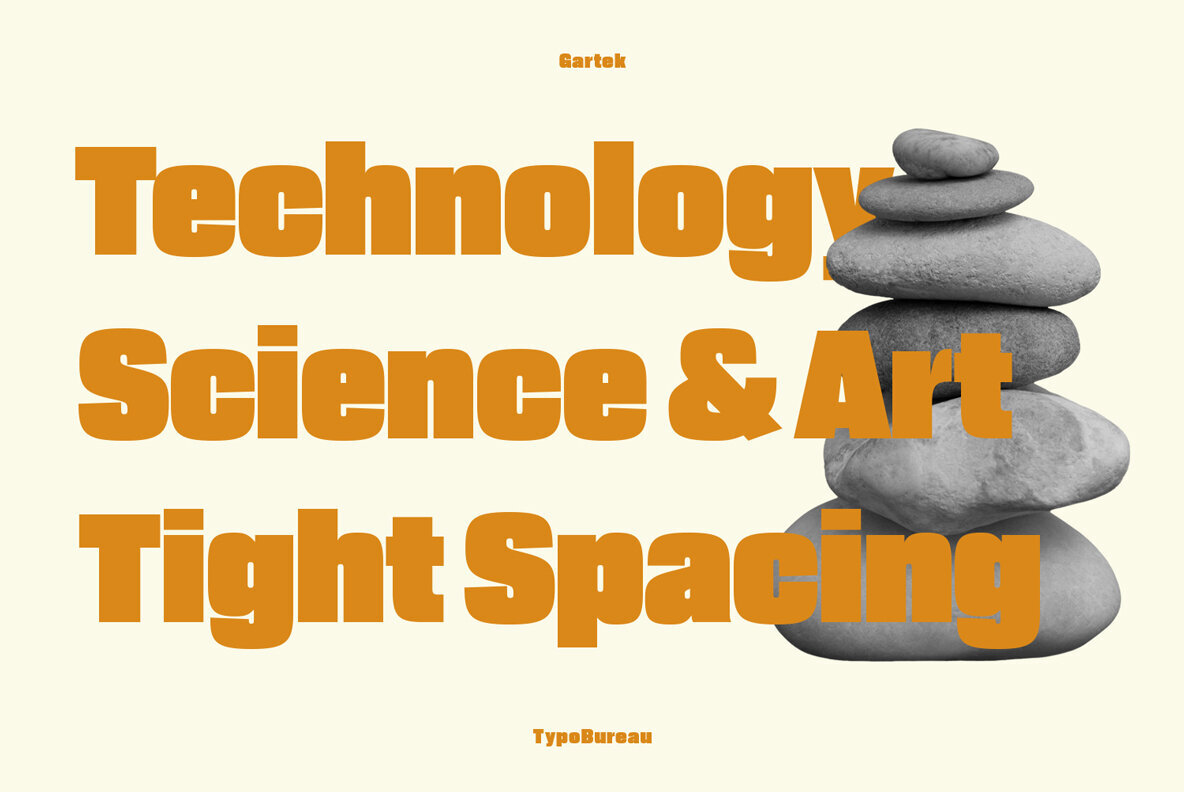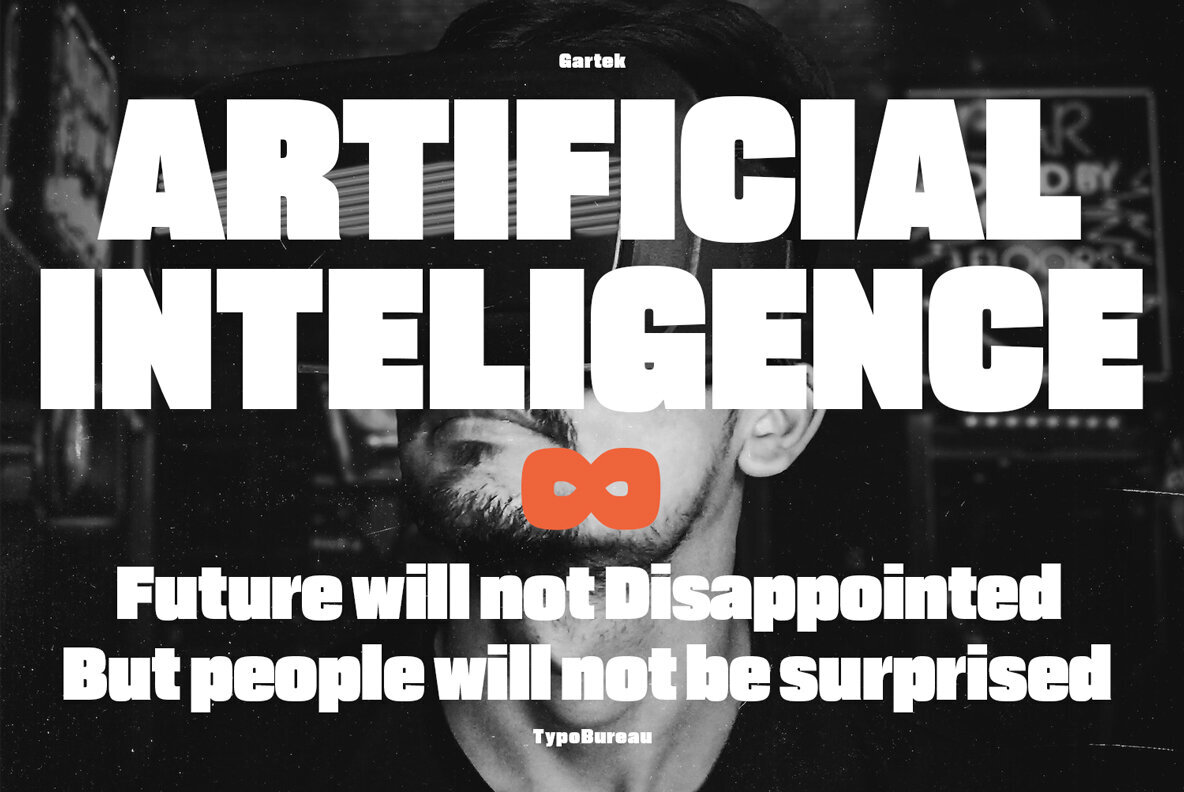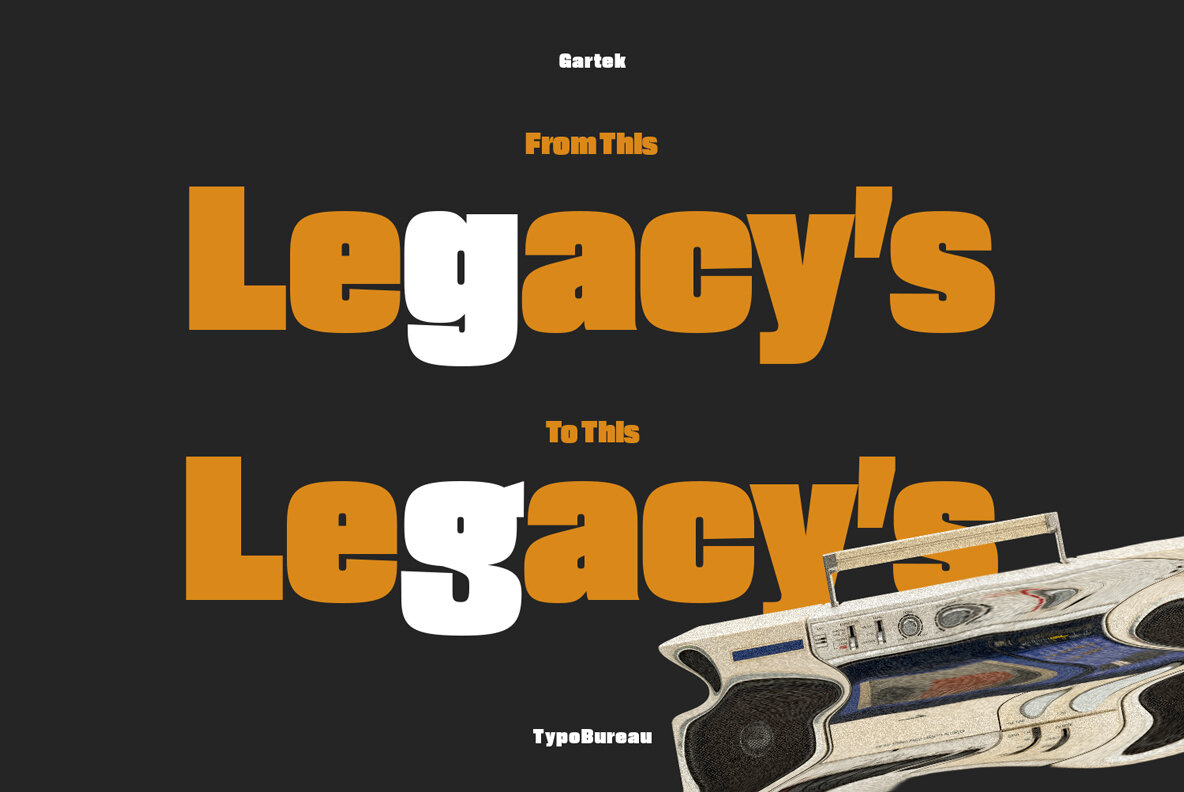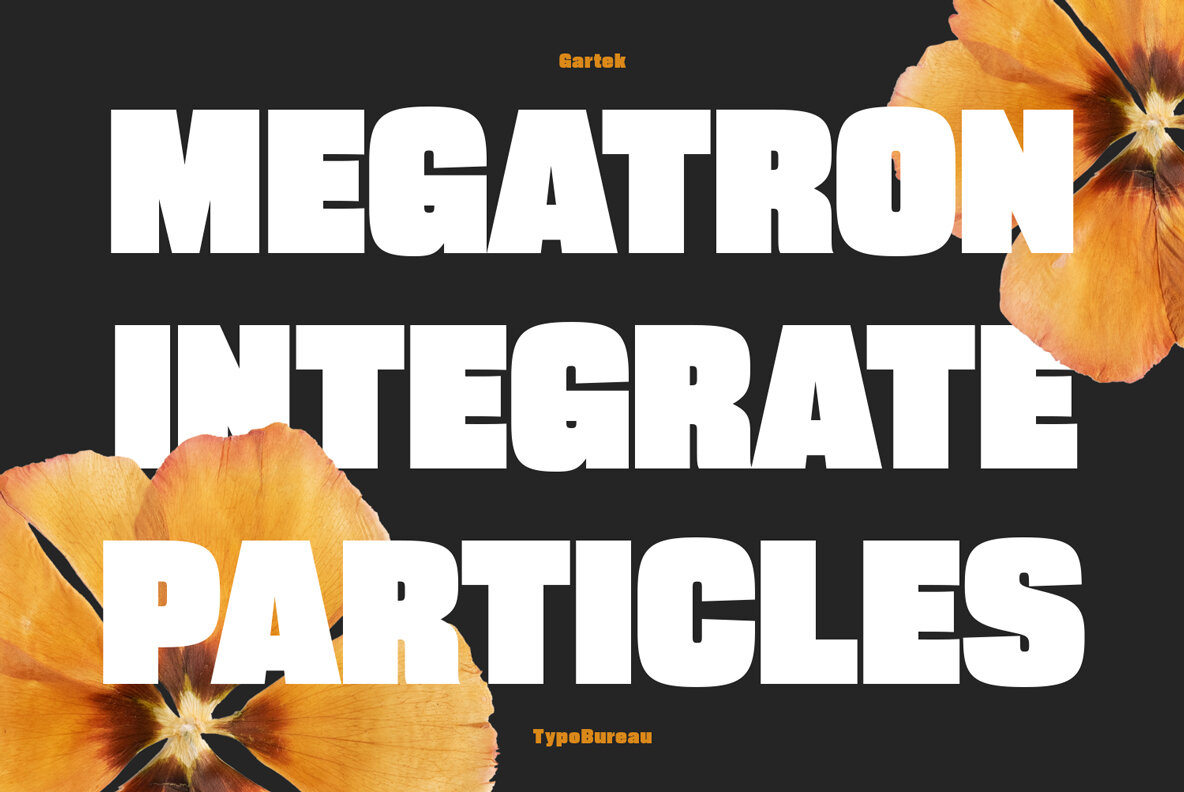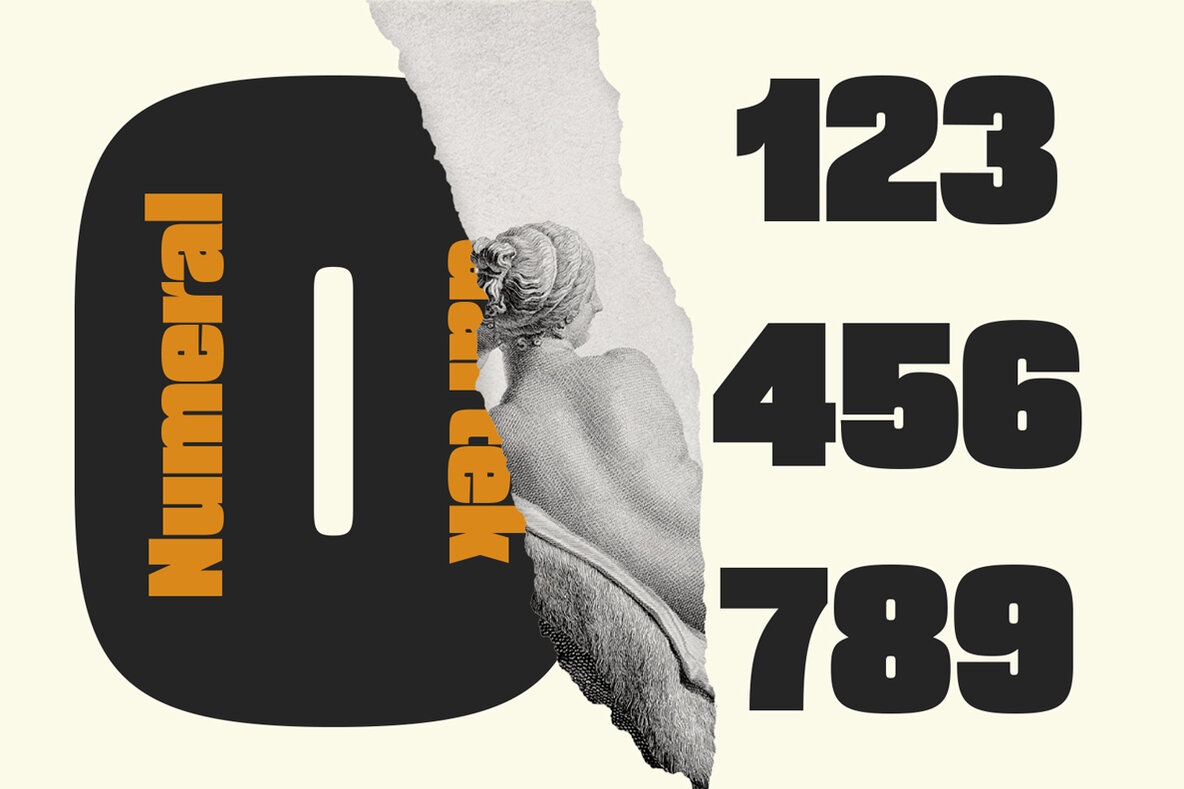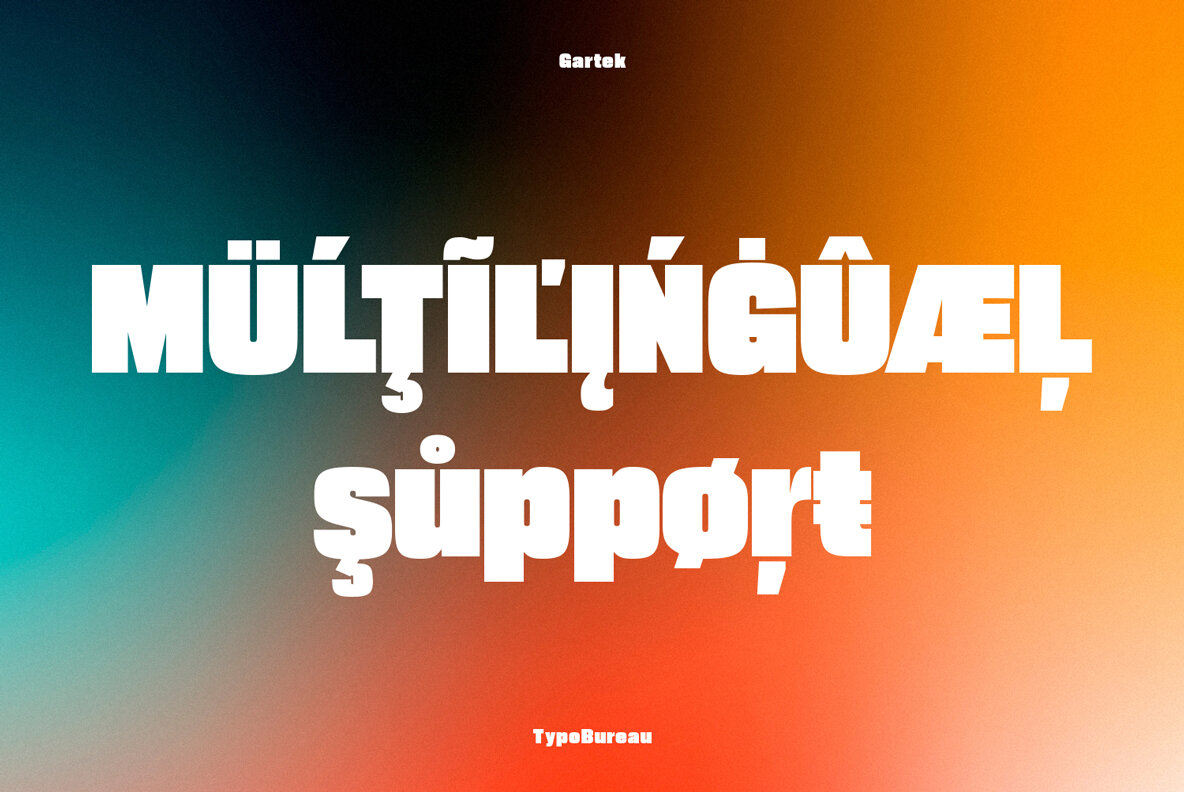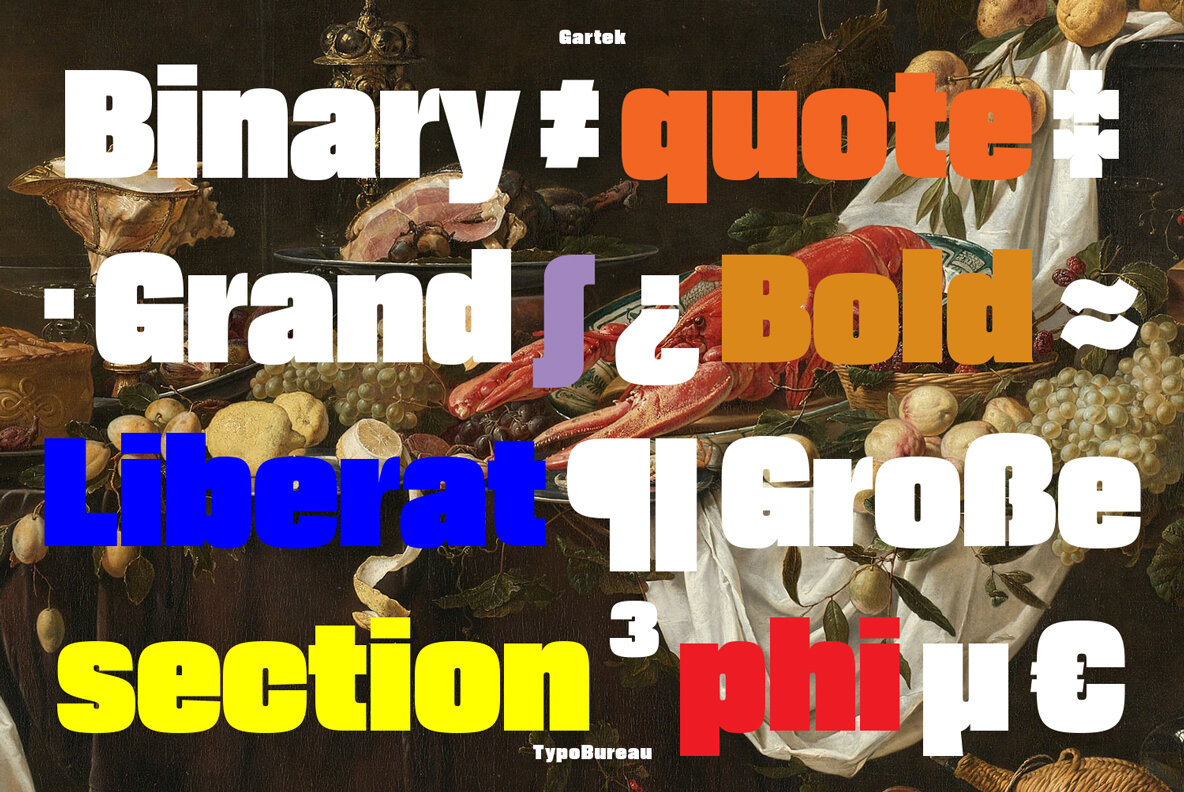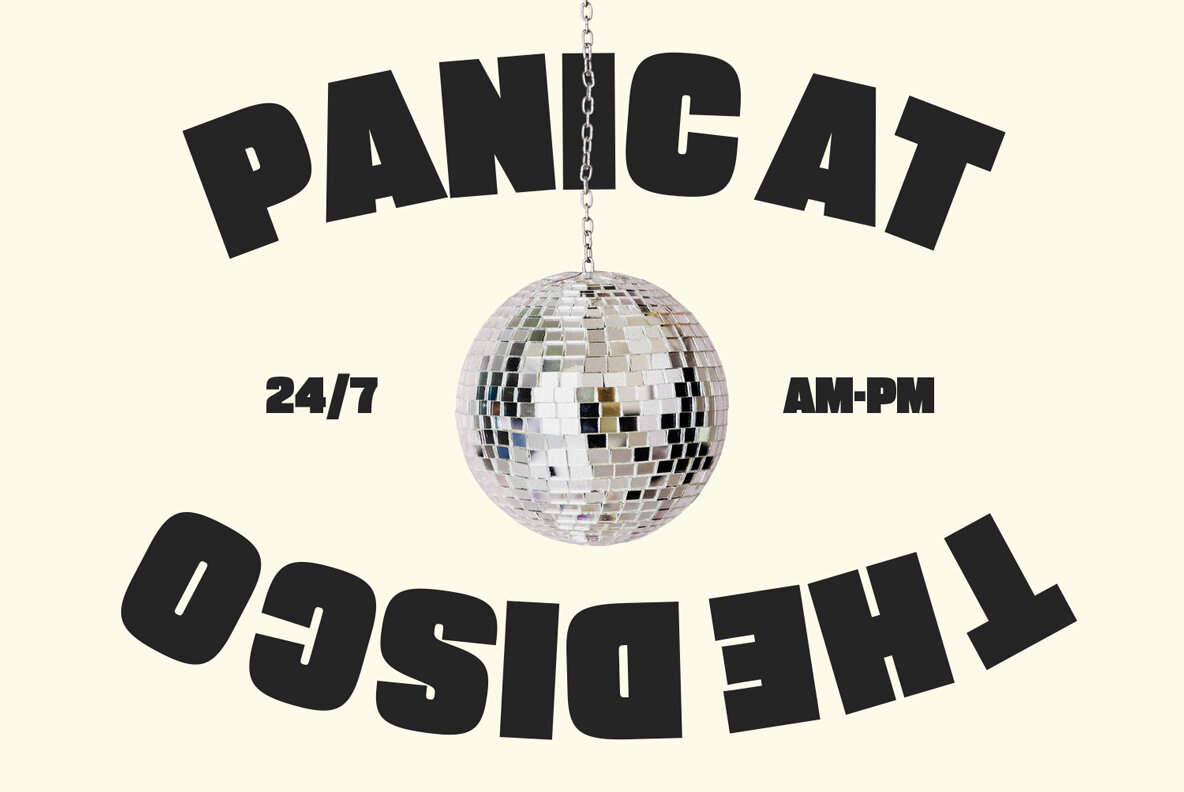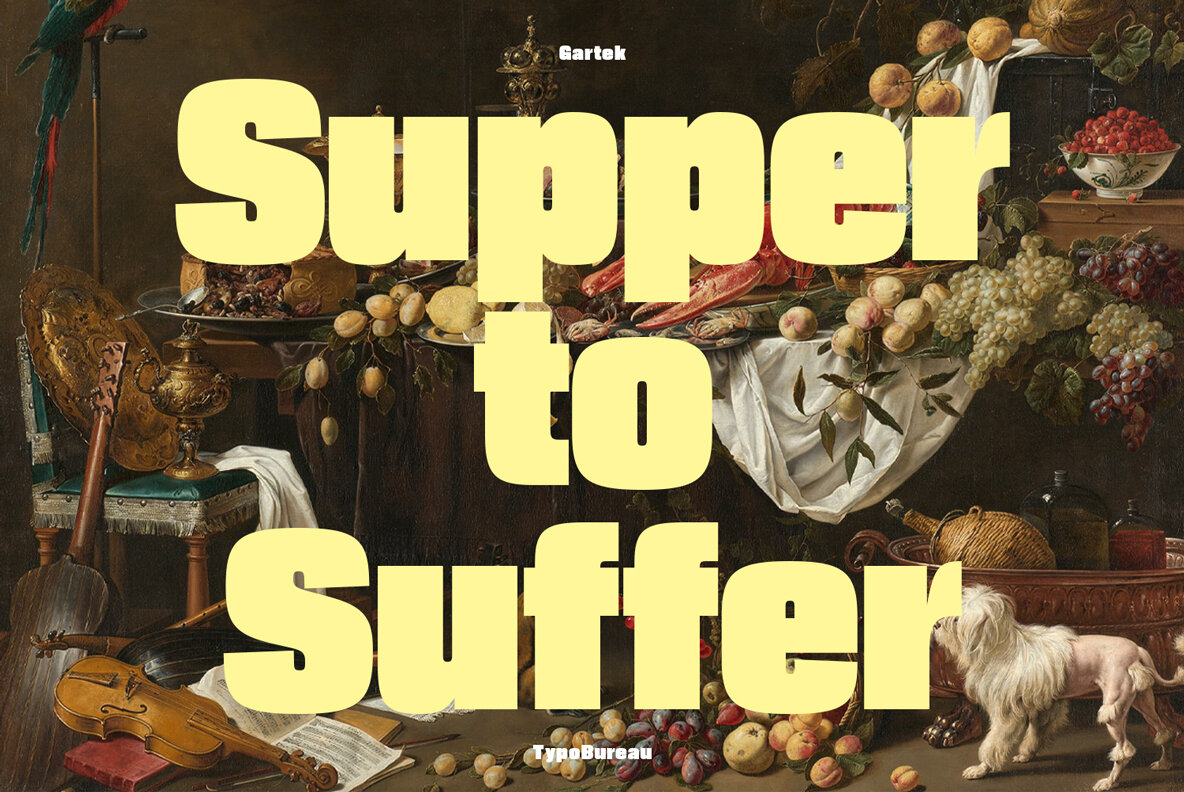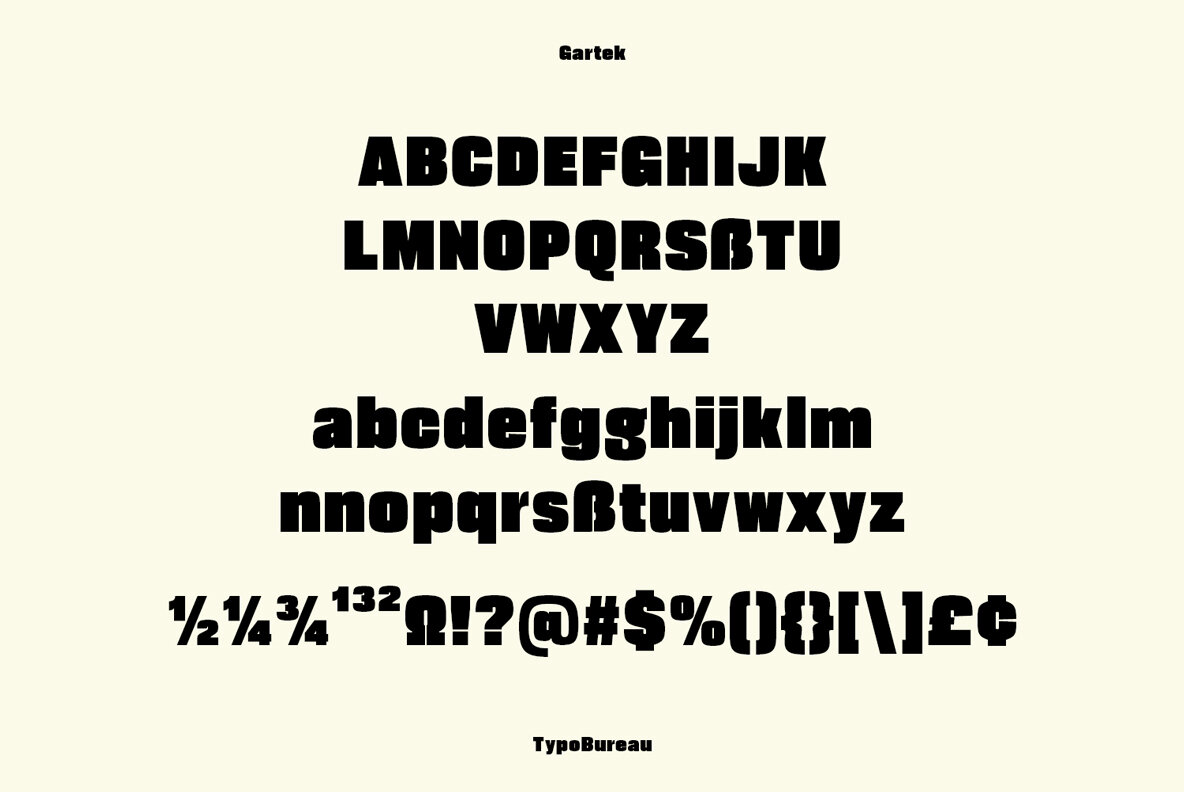
TBS Gartek Font
TBS Gartek Display
Bring your projects to life with TBS Gartek - the headliner font super heavy stroke! Created by Typo Bureau, this unique font adds an extra touch of boldness and dynamism to all kinds of design projects. With its distinct shape and weight, it's perfect for logos, titles, posters and more. Unleash the power of TBS Gartek today - get yours at YouWorkForThem!